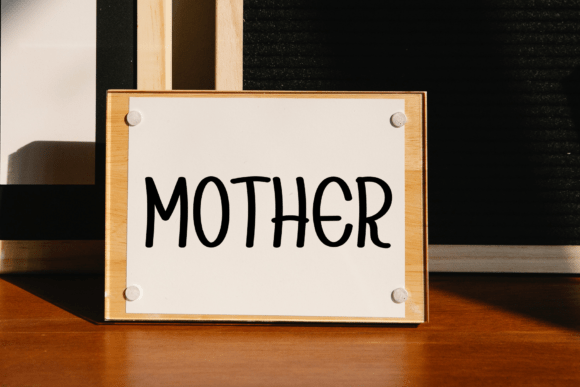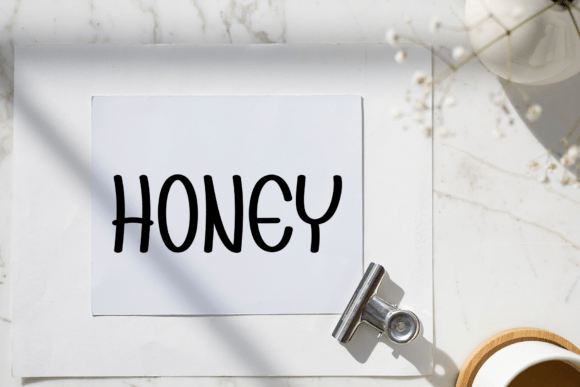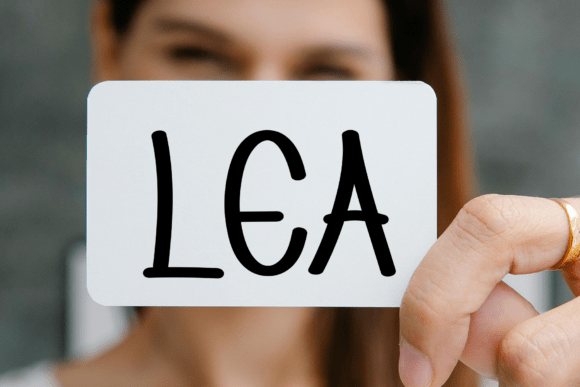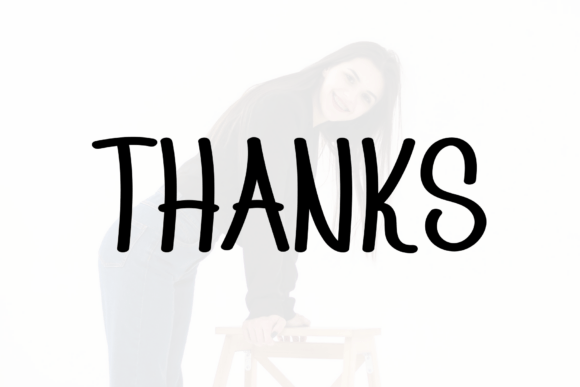
Introducing Balensia Font: The Sweet and Beautiful Handwritten Font for Your Design Projects
Are you a designer or crafter looking for a unique and charming font to add a personal touch to your design projects? Look no further than Balensia Font! This sweet and beautiful handwritten font is perfect for creating cozy and inviting designs that will capture the hearts of your audience. In this article, we’ll explore the features and benefits of Balensia Font, and show you how to make the most of this gorgeous font in your design projects.
What is Balensia Font?
Balensia Font is a beautiful handwritten font that features characters that dance along the baseline, giving it a playful and whimsical feel. This font is perfect for designers and crafters who want to add a touch of warmth and personality to their designs. Whether you’re creating a logo, a poster, a social media graphic, or a digital product, Balensia Font is sure to make your design stand out.
Key Features of Balensia Font
• Handwritten style: Balensia Font has a beautiful handwritten style that gives it a personal and unique touch.
• Dancing characters: The characters in Balensia Font dance along the baseline, creating a playful and whimsical feel.
• Cozy and inviting: This font is perfect for creating cozy and inviting designs that will make your audience feel warm and fuzzy inside.
• Versatile: Balensia Font can be used for a wide range of design projects, from logos and posters to social media graphics and digital products.
Benefits of Using Balensia Font
So why should you choose Balensia Font for your design projects? Here are just a few benefits of using this gorgeous font:
• Adds a personal touch: Balensia Font adds a personal and unique touch to your designs, making them stand out from the crowd.
• Creates a cozy atmosphere: This font is perfect for creating cozy and inviting designs that will make your audience feel warm and fuzzy inside.
• Easy to read: Despite its playful and whimsical feel, Balensia Font is easy to read and understand, making it perfect for body text and headlines.
• Versatile: Balensia Font can be used for a wide range of design projects, from logos and posters to social media graphics and digital products.
How to Use Balensia Font in Your Design Projects
Using Balensia Font in your design projects is easy! Here are a few tips to get you started:
• Pair it with other fonts: Balensia Font looks great when paired with other fonts, such as sans-serif fonts or serif fonts.
• Use it for headlines and body text: This font is perfect for both headlines and body text, making it a versatile addition to your design projects.
• Experiment with colors and textures: Balensia Font looks great in a variety of colors and textures, so don’t be afraid to experiment and find the perfect combination for your design.
In conclusion, Balensia Font is a sweet and beautiful handwritten font that is perfect for designers and crafters who want to add a personal touch to their design projects. With its playful and whimsical feel, cozy and inviting atmosphere, and versatility, this font is sure to become a favorite in your design toolkit. So why wait? Download Balensia Font today and start creating stunning designs that will capture the hearts of your audience!